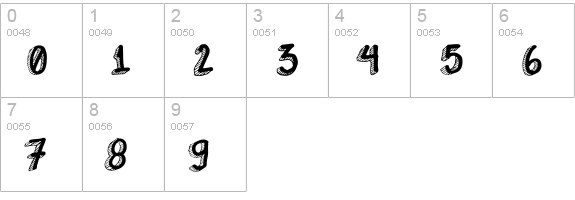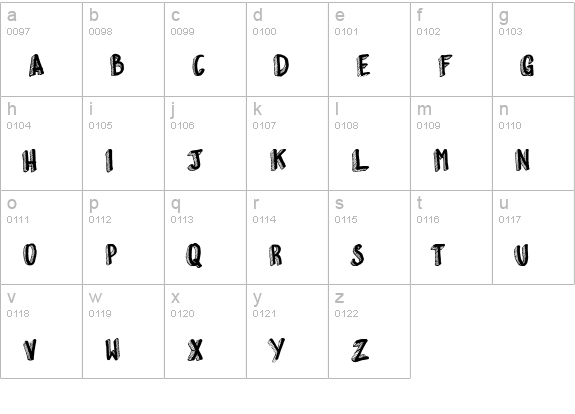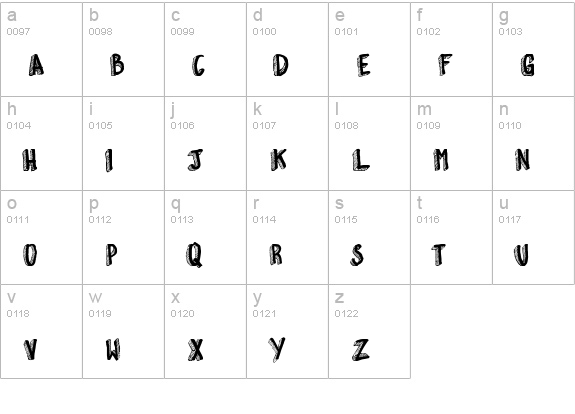
EsquisitoRegular is a free for personal use font in the Script > Graffiti category. It has been downloaded 32 times and is available for Windows, Mac and Linux.
EsquisitoRegular font is a remarkable typeface that exudes elegance and sophistication. With its clean lines and stylish curves, this font is perfect for adding a touch of class to any design project. Featuring a balanced blend of modernity and classic charm, EsquisitoRegular offers versatility that makes it suitable for a wide range of design applications. Whether you are designing a logo, creating a branding package, or working on a website, this font will effortlessly elevate your design to the next level. EsquisitoRegular is characterized by its legibility and readability, making it easily accessible to readers of all ages. Its carefully crafted letterforms ensure that each character is distinct and easily recognizable, enhancing overall readability and making it a joy to read. But what sets EsquisitoRegular apart is that it is freely available to download at FontsMarket.com. This means that you can enhance your design projects with this stunning font without any cost. Whether you are a professional designer or a student working on a personal project, this font is accessible to all. So why wait? Download EsquisitoRegular today from FontsMarket.com and unlock the potential to create captivating designs that leave a lasting impression. Whether it's for print or digital, this font will surely become a go-to choice for designers seeking a perfect balance between elegance and functionality.